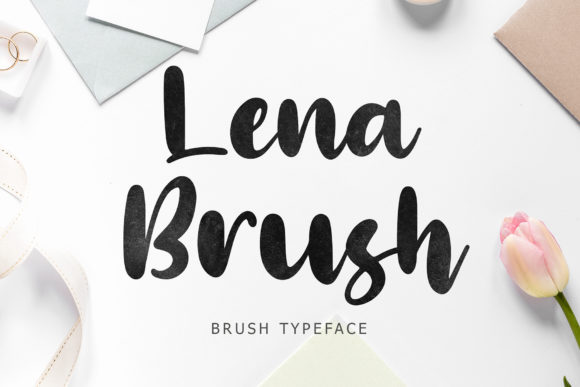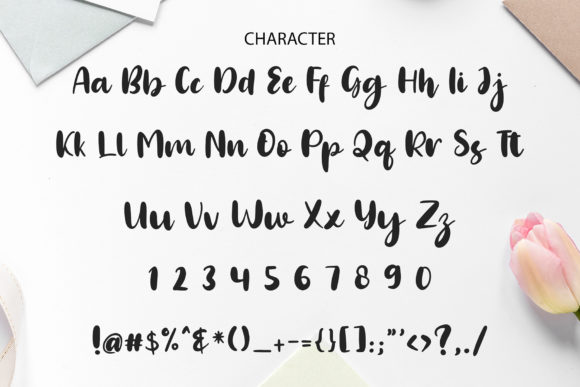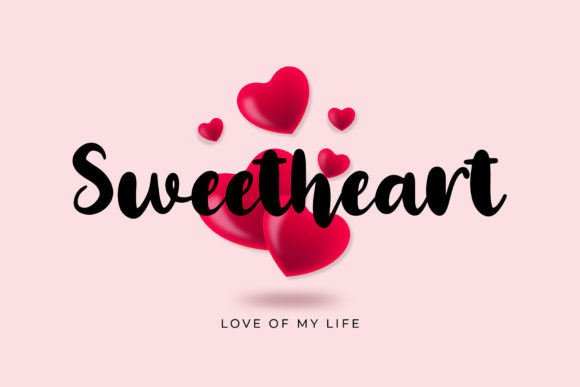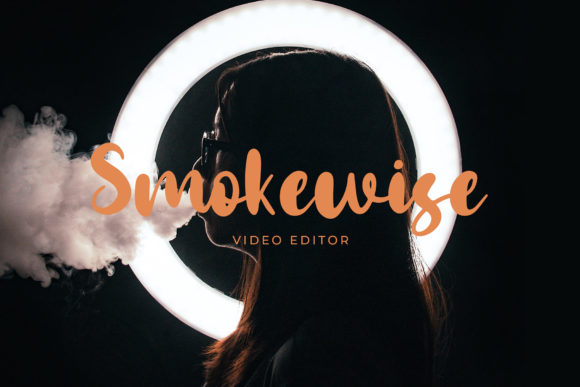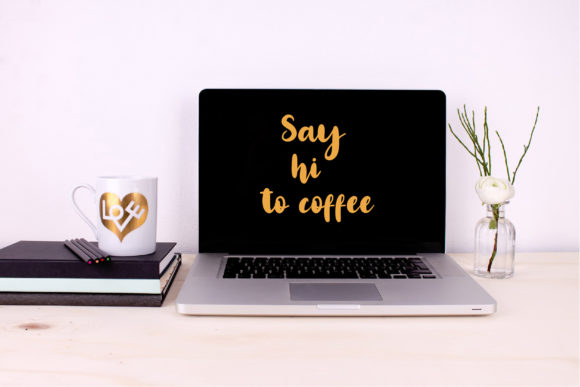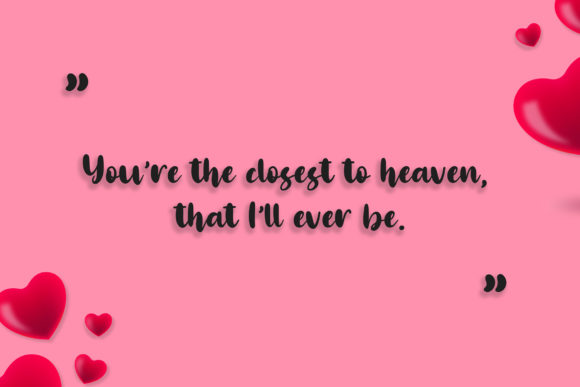
Lena Font
About Lena Font
Lena simplifies elegance into one truly outstanding handwritten font. This font is the perfect fit for all of your logos, branding, social media, and crafty DIY projects.